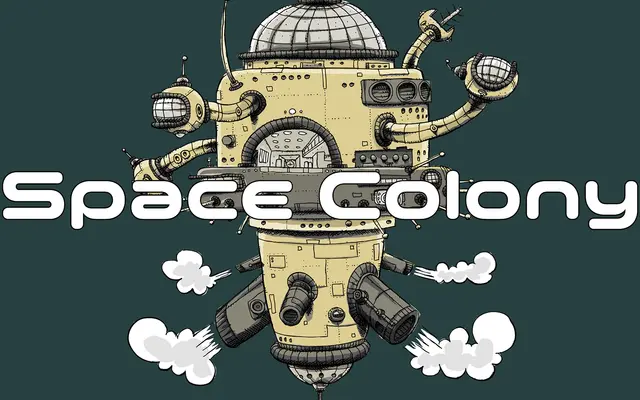
Space Colony specimen from Dharma Type
A wide, rounded geometric display family in six weights, drawn with retro robot animation and sci-fi projects in mind.
Originally sketched with the side characters of 1980s mecha anime in mind, Space Colony was shelved before being finished in 2011 with its geometric shapes and rounded terminals intact. Six weights make it workable across games, film titles, logos and character merchandise where a futuristic flavour is needed. The soft, wide forms give it a dual character: capable of reading as boldly sci-fi or gently cartoonish depending on context.
A wide, rounded geometric display face with a retro-futurist character, designed explicitly for sci-fi themed projects, games and animation merchandise rather than text use.